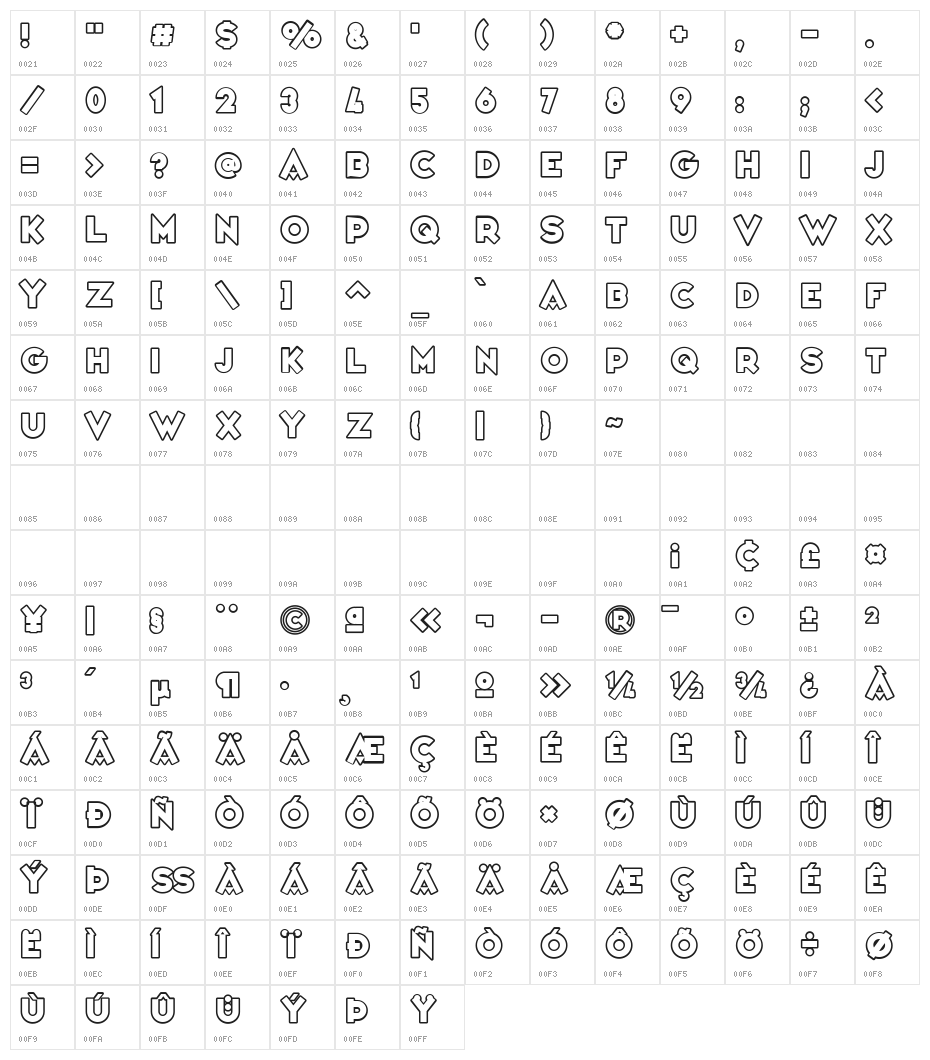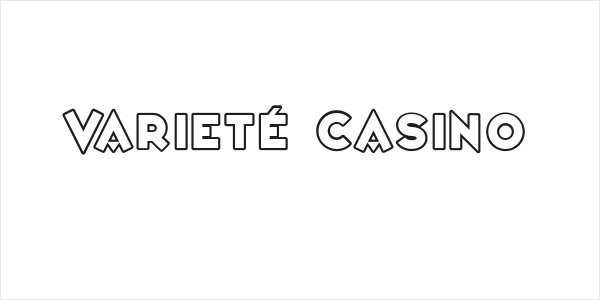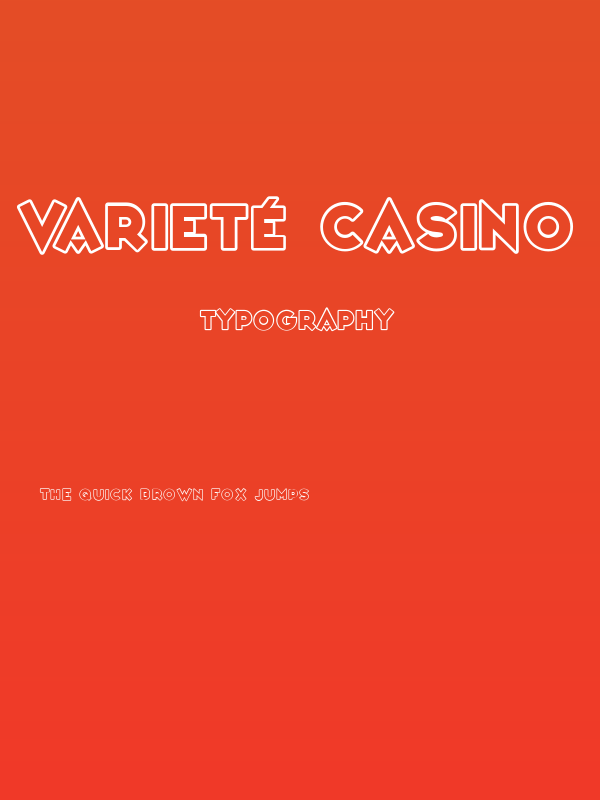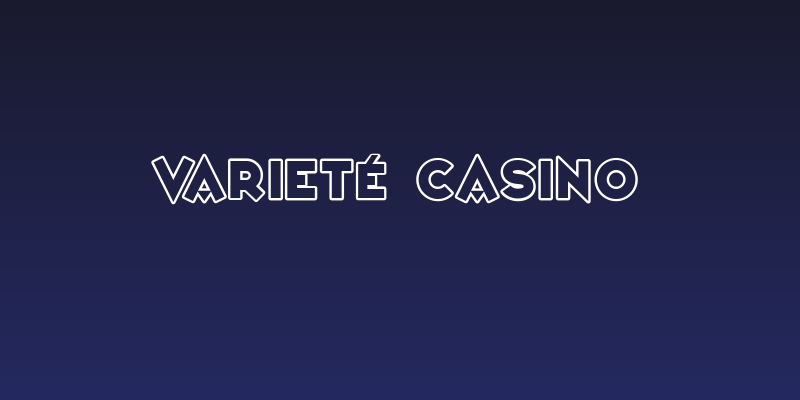
Varieté Casino Font
Varieté Casino Description
This font features a bold, playful style with a strong outline that gives each character a three-dimensional appearance. The uppercase letters are designed with a geometric flair, incorporating sharp angles and clean lines. The lowercase letters maintain the same boldness, ensuring consistency throughout the typeface. The numerals are equally bold and maintain the geometric style, making them highly legible. Special characters are included, each designed to match the overall aesthetic. This font is ideal for creating eye-catching headlines and designs that require a fun, dynamic look.
| Proposed Projects | Ideal for casino-themed designs, posters, and playful branding projects. |